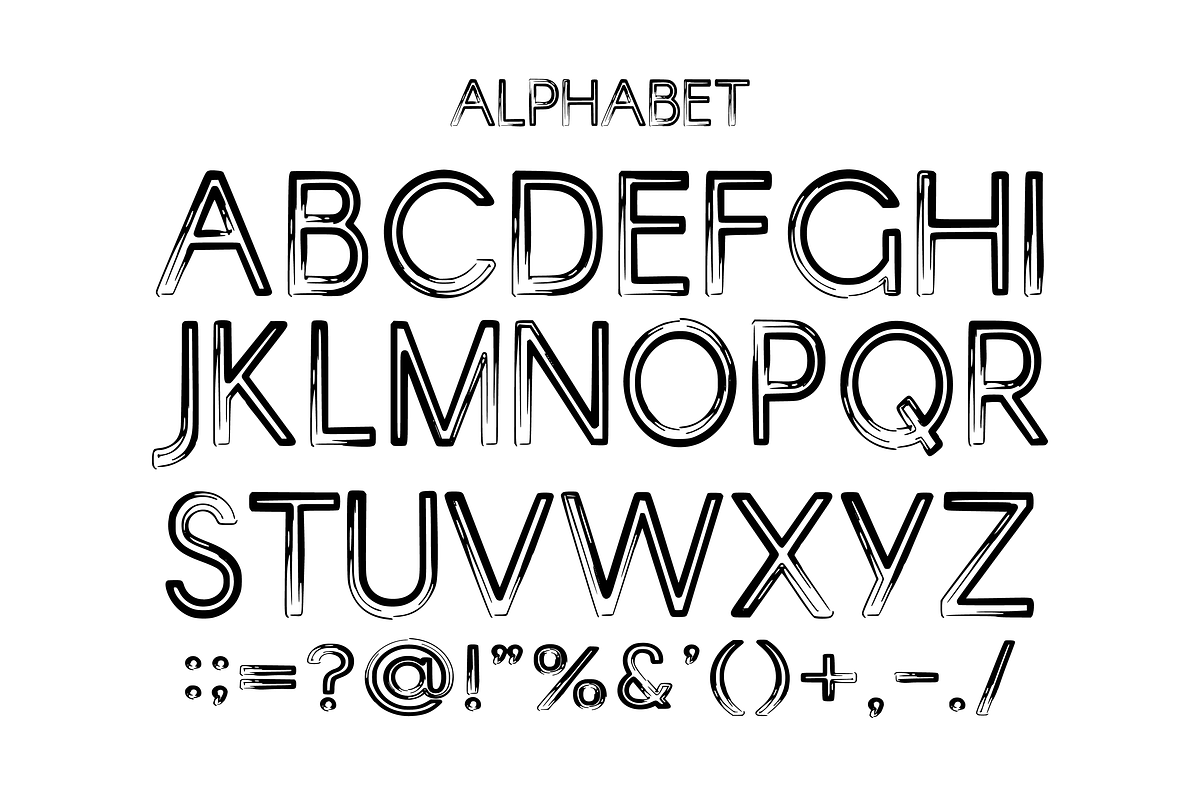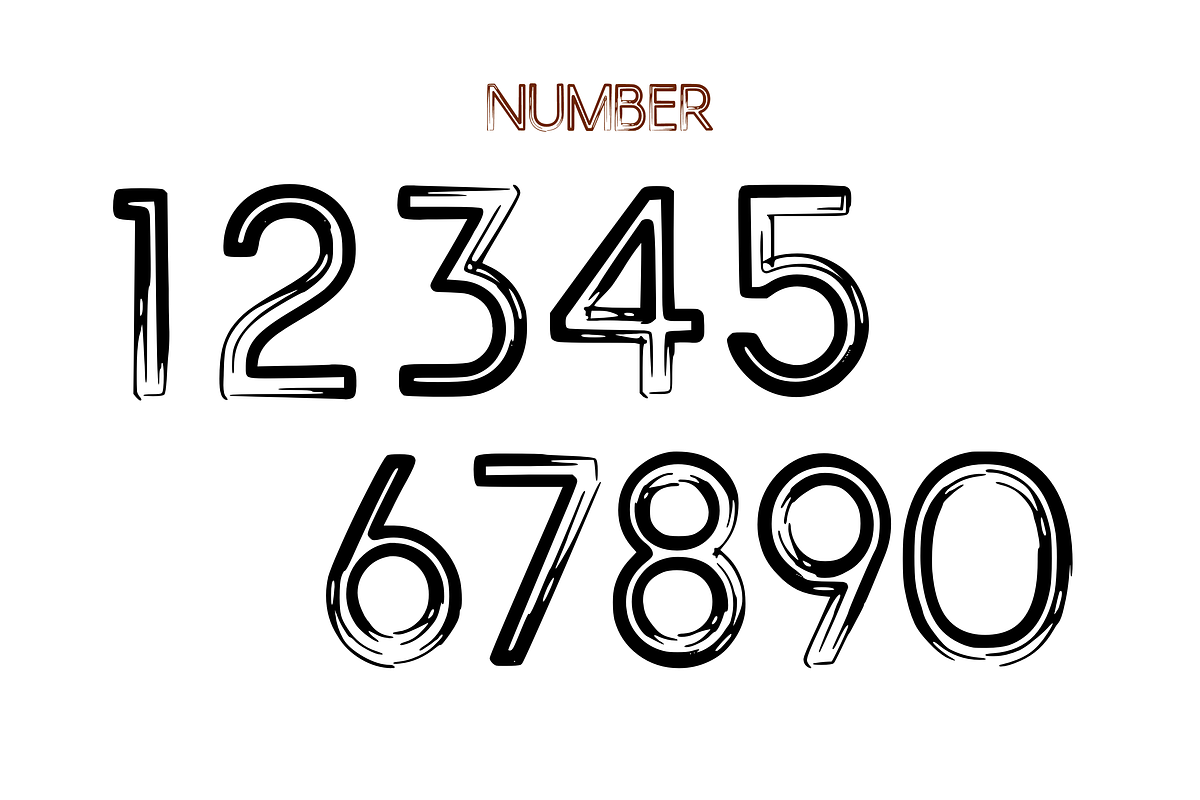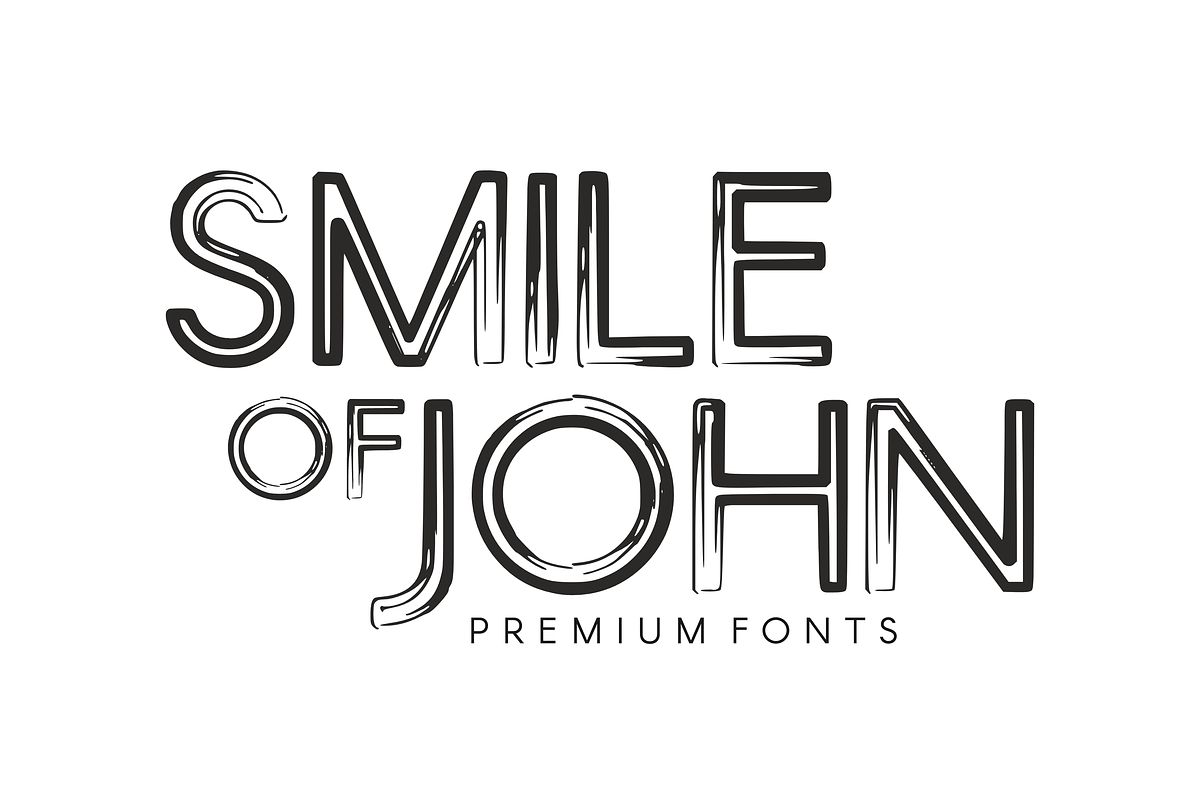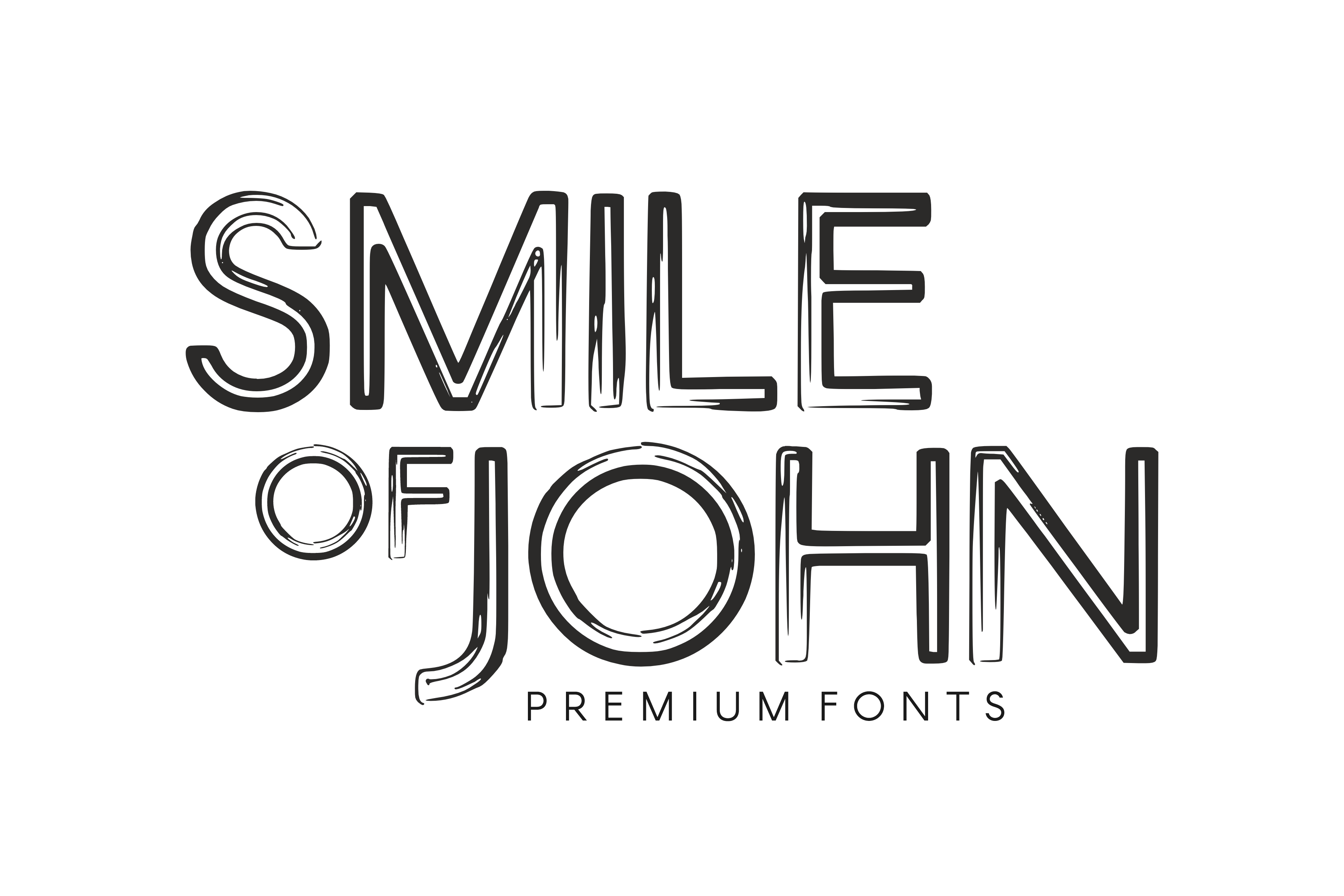
Smile of John - Horror Font Types
Discover the timeless allure of Smile Of John – a typeface that artfully marries a vintage vibe with distinctive characters. Each glyph is thoughtfully crafted to stand apart, making Smile Of John an ideal choice for creating standout movie or comic titles, gracing the cover of trendy magazines, or adding a touch of retro charm to your digital creations. This font will add a sophisticated layer to your t-shirt prints, infusing every project with a classic appeal that never goes out of style. Bask in the charisma of Smile Of John, where each stroke captures the enchanting essence of bygone eras, yet fits seamlessly into modern designs.